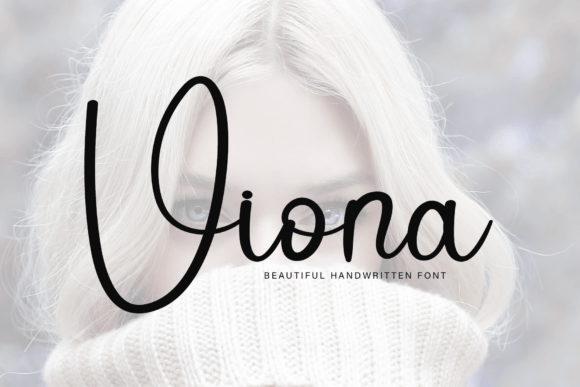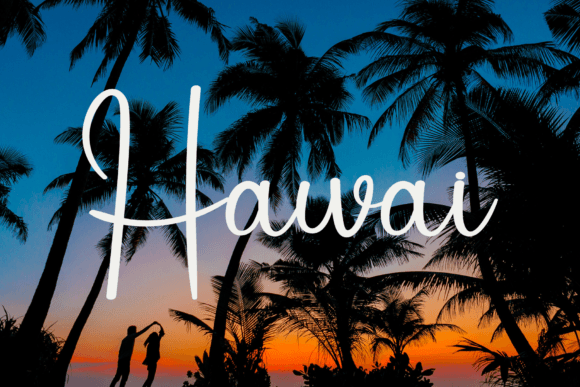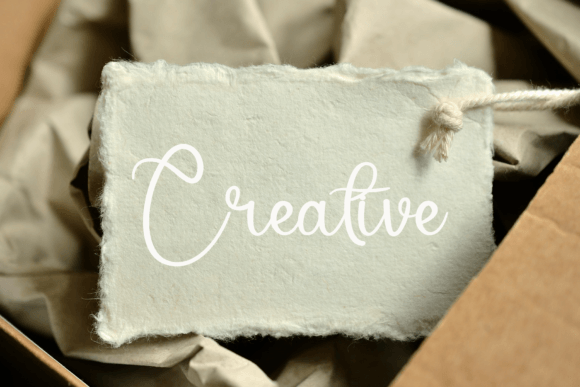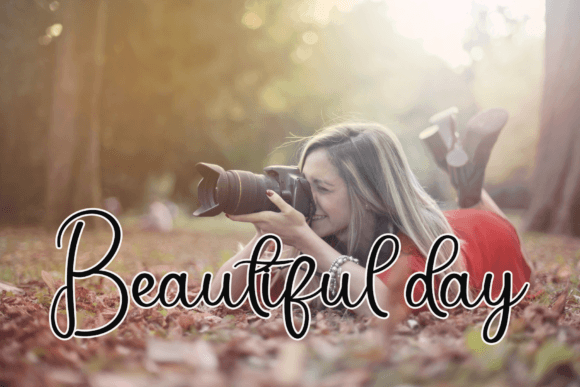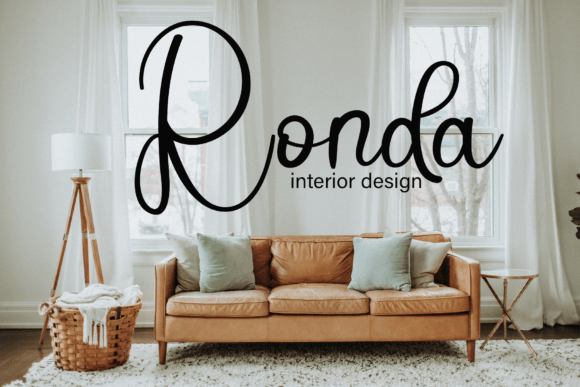
Viona Font : A Captivating Handwritten Font for Elegant Designs
Introducing Viona, a captivating handwritten font that beautifully combines neatness and elegance. With its distinct and timeless style, Viona is perfect for a wide range of creative projects, inspiring you to craft spectacular designs.
Key Features of Viona Font
- Elegant Handwritten Style: Each character is meticulously crafted, exuding sophistication and refinement.
- Versatile Application: Suitable for logos, invitations, branding materials, and more.
- Timeless Design: Its unique blend of neatness and beauty ensures it remains relevant across various aesthetics.
Perfect for Multiple Design Projects
Viona’s versatility makes it an excellent choice for:
- Branding: Create a memorable visual identity that stands out from the competition.
- Wedding Invitations: Add a touch of class to your wedding stationery, leaving a lasting impression on guests.
- Greeting Cards: Design heartfelt messages that convey genuine emotions.
- Logos: Develop logos that range from elegant and refined to modern and trendy.
- Digital Content: Enhance website aesthetics with engaging typography.
Enhancing Your Creative Vision
What sets Viona apart is its unique blend of neatness and beauty. Each character is designed with an elegant touch, making it ideal for projects that require a sophisticated aesthetic. Imagine using Viona to create stunning wedding invitations or captivating branding materials that resonate with your audience.
Crafting with Viona
For businesses and brands, Viona offers an opportunity to create a memorable visual identity. Whether launching a new venture or revamping an existing brand, this font’s distinctiveness can help you connect with customers on a deeper level. Its elegant design conveys creativity and professionalism, ensuring your brand leaves a lasting impression.
Digital Design Applications
In the realm of digital content, Viona enhances the overall aesthetics and readability of your text. Its timeless design makes it suitable for titles, headings, and display text in websites and social media posts. The elegant style ensures that your content is not only visually appealing but also engaging for visitors.
In summary, Viona is more than just a font; it’s a design tool that adds sophistication to your projects. Its neat and beautiful handwritten style makes it perfect for various applications, including branding, personal projects, and online content. Embrace the charm of Viona today! Incorporate this exquisite handwritten font into your design toolkit and watch as it transforms your ideas into captivating works of art. With Viona at your disposal, you can create stunning designs that leave a lasting impression on your audience!